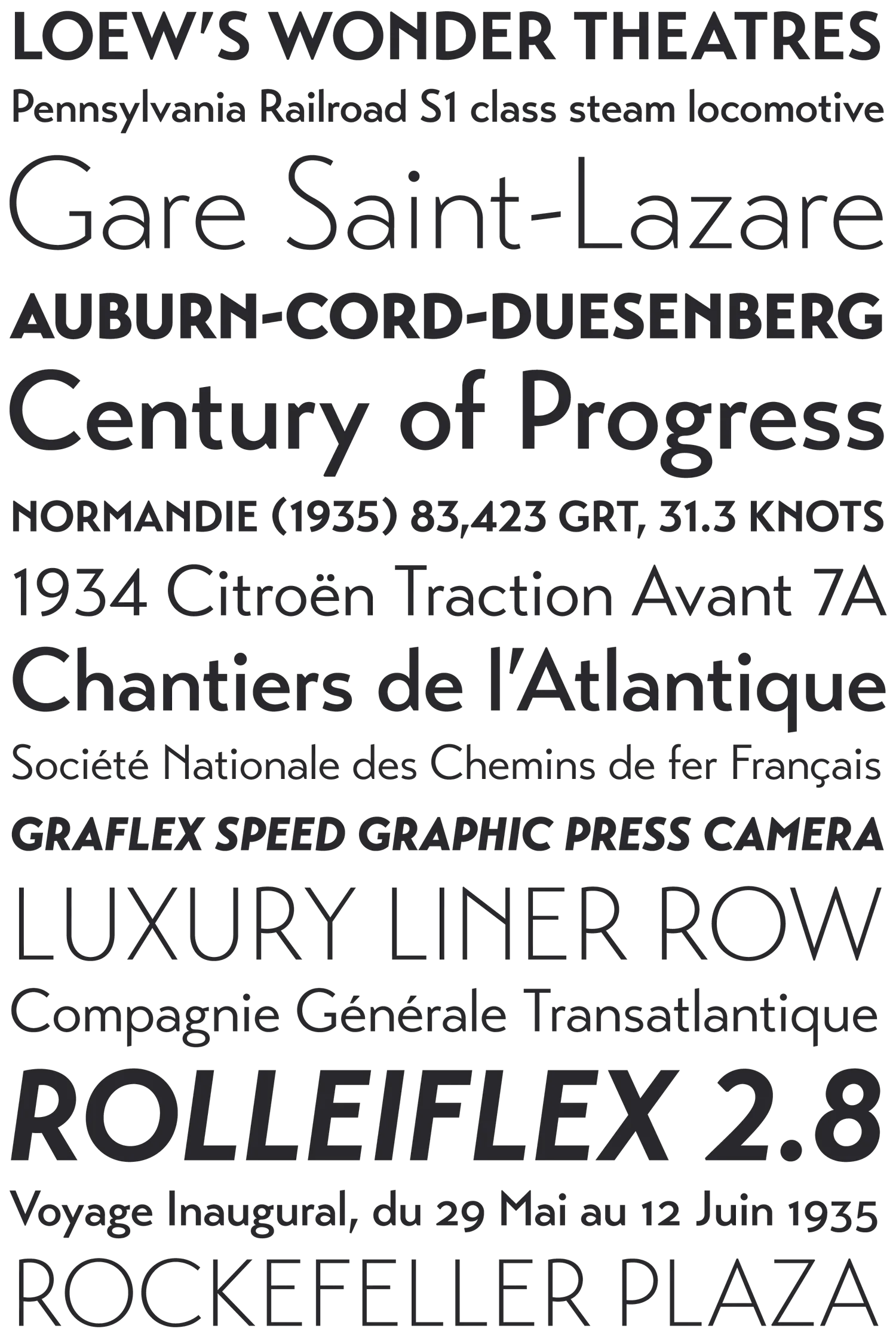
About Transat
Transat is a geometric sans serif typeface with caps inspired by Art Deco signage — found inside the “Gare Maritime” (literally “sea station”) ocean liner terminals in both Le Havre and Cherbourg, France, in the early 1930s. The name “Transat” is the common shortening of “Compagnie Générale Transatlantique,” which operated majestic ocean liners like the SS Normandie out of Le Havre from 1862 to 1974.
Transat Text is the more rational sibling, with a slightly taller x-height than its counterpart, making it easier to read at small sizes.
Transat has been used in various applications worldwide, including in the title graphics for the 2016 NBC variety series Maya & Marty, designed by Pentagram.